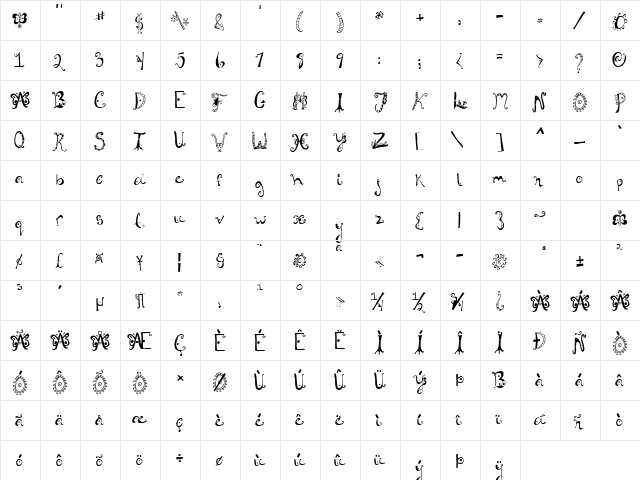
Fannys Treehouse Regular
Design Context for Fannys Treehouse Typeface
Fannys Treehouse is a composed and adaptable typeface that performs quietly and consistently across a wide range of design contexts.
Pro Tip: Use Fannys Treehouse in both headline and body roles to test its range before committing to a single application.